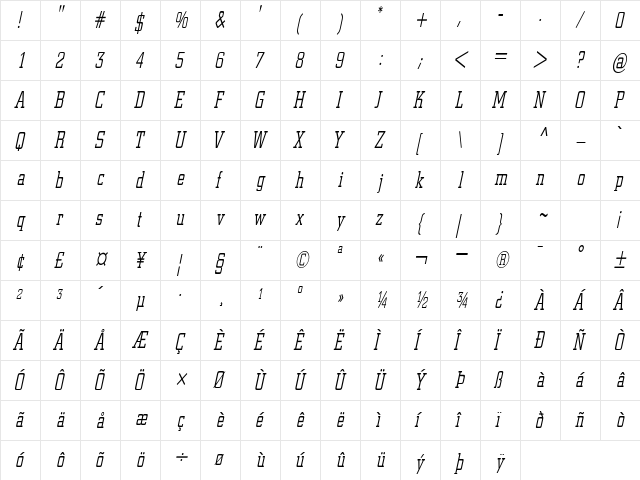
CenterCityCondensed Oblique Font Preview
Design Context for CenterCityCondensed Typeface
CenterCityCondensed offers clean, dependable letterforms without strong stylistic allegiance, making it a practical choice for designers who need flexibility. The dynamic lean of this cut emphasises speed and emphasis in any layout. The condensed width makes it efficient for tight spaces without sacrificing legibility.
Pro Tip: Try CenterCityCondensed for annotation and caption copy alongside an upright companion — the contrast in angle creates a dynamic but ordered typographic system.